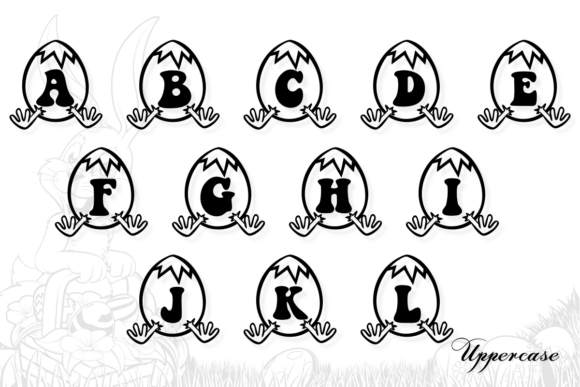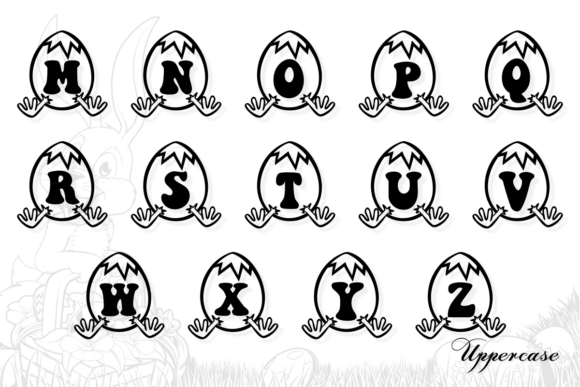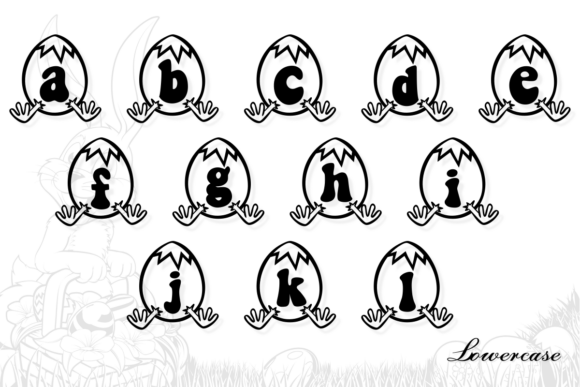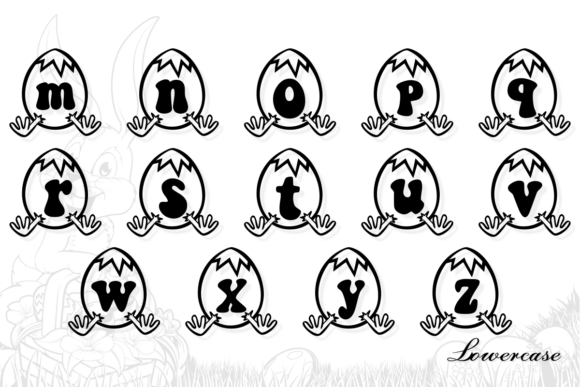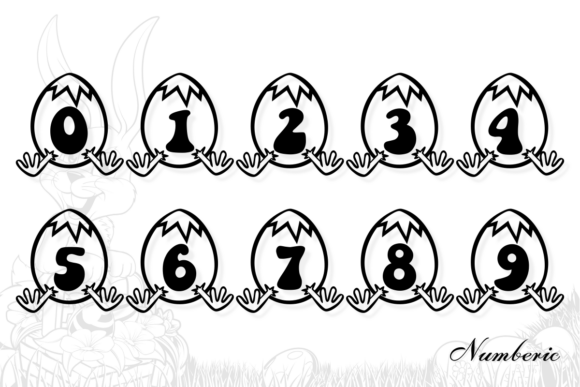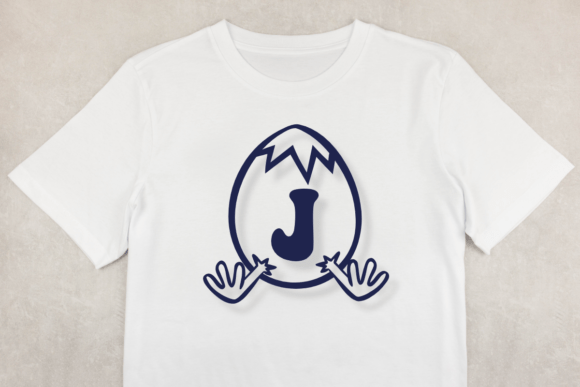
The Joy of Easter Egg Font: A Playful Addition to Your Design Projects
I’ll never forget the time I was working on an Easter-themed party invitation for a client’s kid’s birthday. I had the design concept all sorted out, but I was struggling to find the perfect font to match the playful and festive vibe. That’s when I stumbled upon Easter Egg Font, and it instantly brought a smile to my face. The egg-shaped characters, whimsical details, and cheerful feel were exactly what I needed to bring the design to life.
An Honest Review of Easter Egg Font
- ✨ Playful, egg-shaped characters that add a touch of whimsy to any design
- ✅ Whimsical details that evoke a sense of Easter cheer
- 🎉 Perfect for Easter party invites, kids’ crafts, greeting cards, and festive packaging
- 👍 Easy to use and pairs well with a variety of design styles
While Easter Egg Font is a delightful addition to any design project, there are a few things to keep in mind:
- ⚠️ The font may not be suitable for formal or professional designs, as it’s quite playful and attention-grabbing
- 🤔 Some characters may not be suitable for small font sizes, as the details can get lost
The Designer Inspiration Behind Easter Egg Font
Easter Egg Font was designed with one goal in mind: to bring a touch of Easter cheer to design projects. The designer, inspired by the whimsy and playfulness of Easter, created a font that’s both fun and functional. With its egg-shaped characters and whimsical details, Easter Egg Font is the perfect addition to any Easter-themed design.
Q: What type of designs is Easter Egg Font best suited for?
A: Easter Egg Font is perfect for Easter party invites, kids’ crafts, greeting cards, and festive packaging.
Q: Is Easter Egg Font available in different languages?
A: Easter Egg Font may not support all languages, but it does include a range of characters and glyphs to help with multilingual designs.